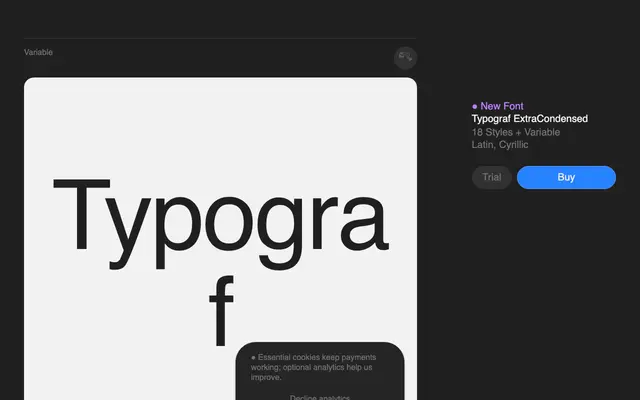
Typograf ExtraCondensed
A uniwidth extra-condensed sans with 18 styles and a variable axis, built so character widths stay fixed across all weights to prevent layout shift in UI components.
Designed by Rostislav Vaněk, Typograf ExtraCondensed applies a uniwidth principle to an extra-condensed sans, meaning every glyph occupies identical horizontal space regardless of weight. This keeps buttons, tables and other state-driven interface elements stable without reflow. Nine weights from Thin to Black each carry a matching italic, with full Latin and Cyrillic coverage across 342 languages.
A uniwidth sans-serif with condensed proportions designed primarily for interface use; its consistent character widths across all weights align it with functional grotesque conventions rather than geometric or humanist models.